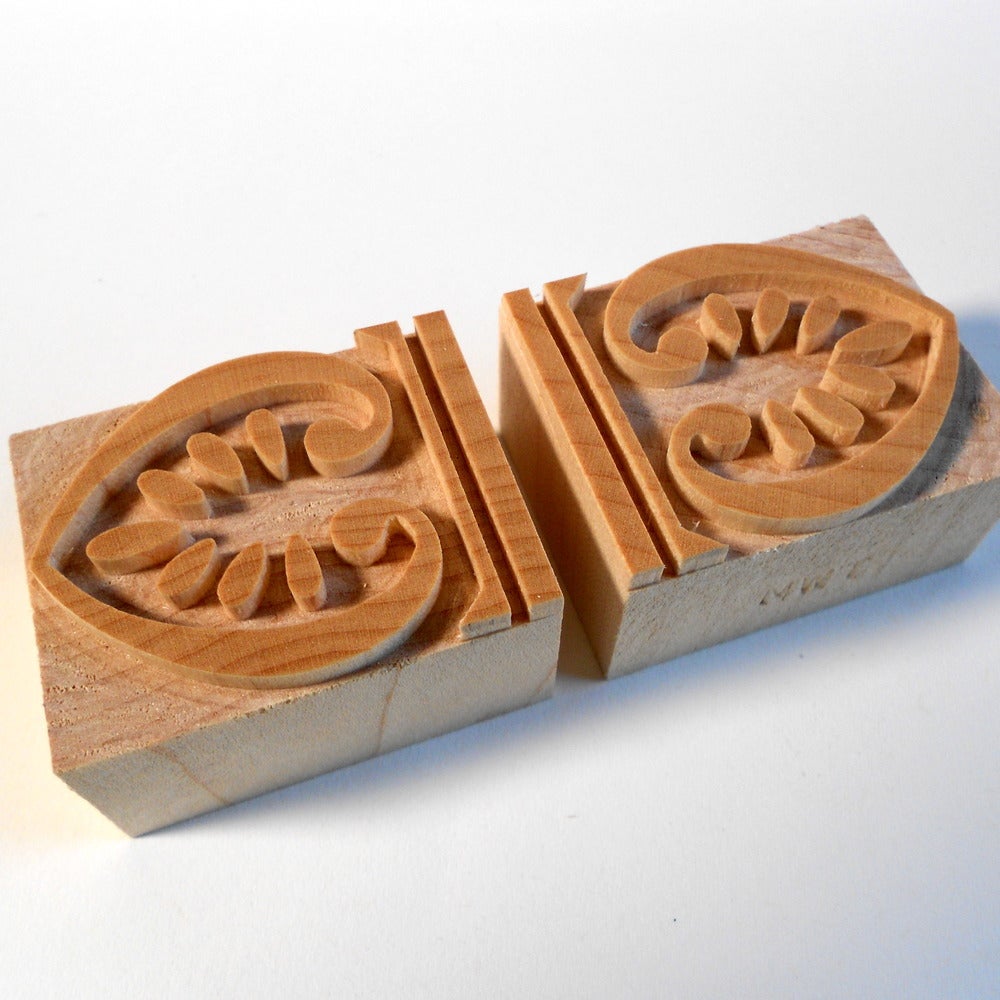
This Line Ornament is used at both ends of a line of type. It is based on one section of William Page's border #512. It is only sold as a pair and is priced as a pair.